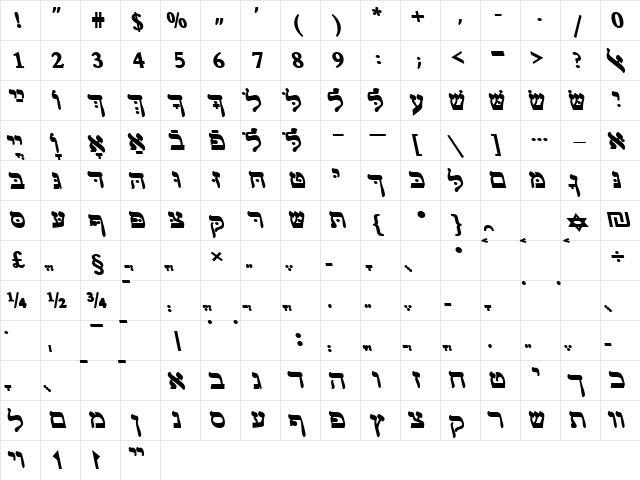
HebrewJoshuaSSK BoldItalic Font Preview
HebrewJoshuaSSK BoldItalic
HebrewJoshuaSSK BoldItalic Font Details
Design Context for HebrewJoshuaSSK Typeface
HebrewJoshuaSSK is a composed and adaptable typeface that performs quietly and consistently across a wide range of design contexts. Its italic angle brings a sense of urgency and motion to the letterforms. Its bold stroke weight gives it real presence on the page.
Pro Tip: Use HebrewJoshuaSSK for emphasis, pull quotes, and subheadings where its slanted energy can add rhythm to the layout.